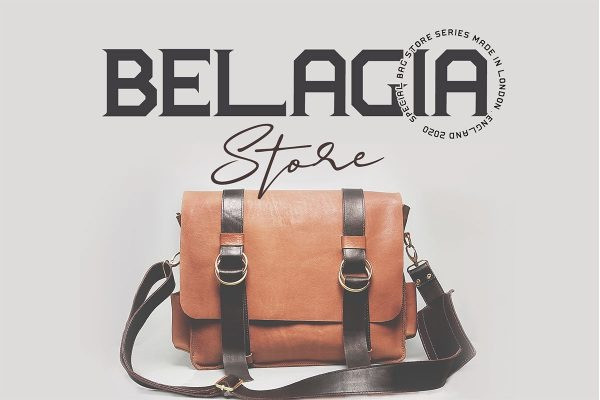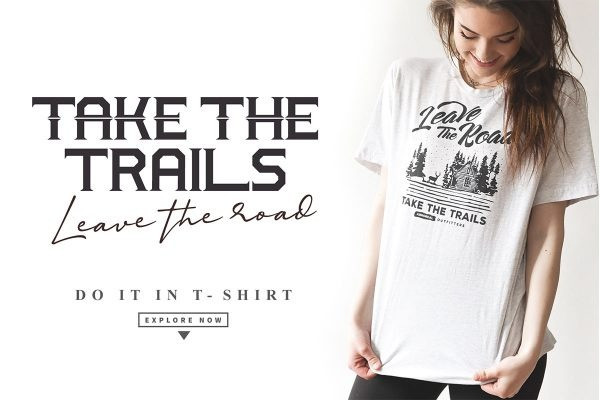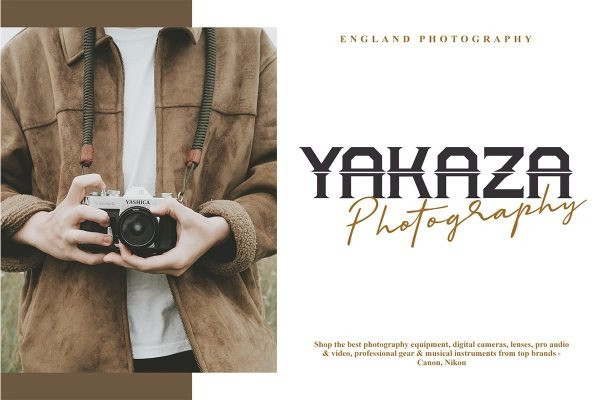
Hillton and Absolute Display Font
This is a unique, vintage and elegant decorative font with victorian style. This typeset is perfect for brand logo, invitations, greeting card, or even any kind of project. With multilingual feature and style variations, this typeface would further enhance the aestethical aspect of your work.